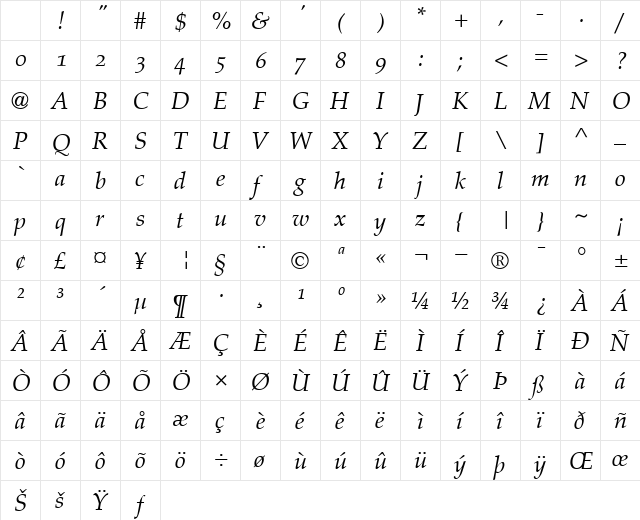
PalatinoOldStyleFigures RomanItalic
Style: RomanItalic
PalatinoOldStyleFigures Family
Design Context for PalatinoOldStyleFigures
PalatinoOldStyleFigures carries the refined structure of traditional serif typography, with bracketed terminals and considered proportions that communicate credibility and craft. The slanted form adds forward momentum and visual energy.